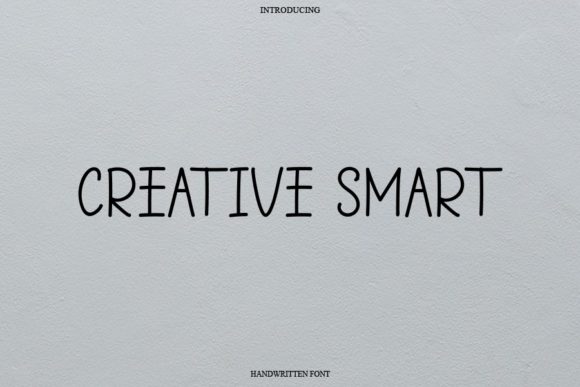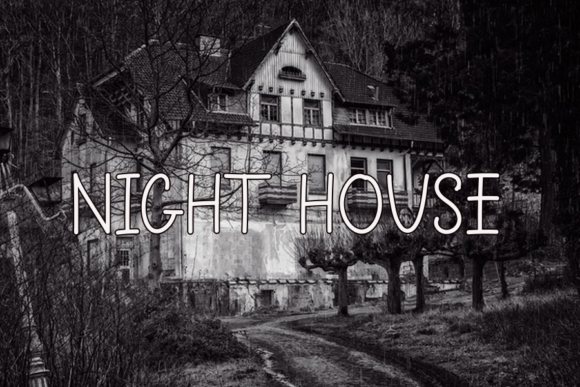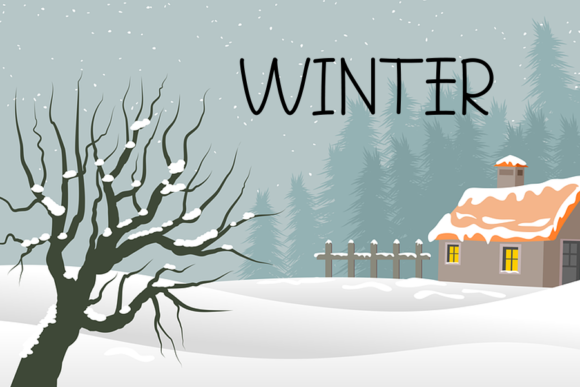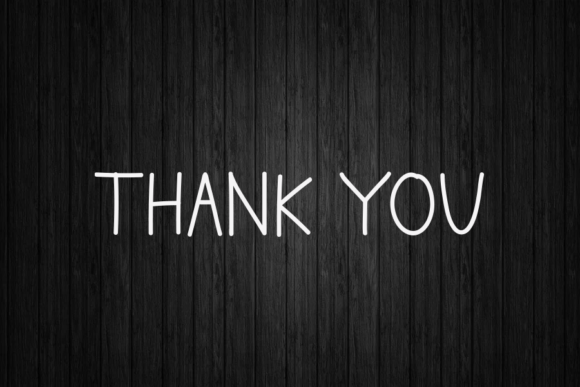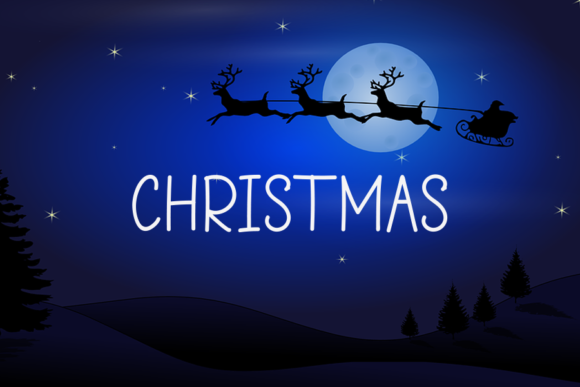
Creative Smart Font
About Creative Smart Font
Creative Smart is a simple and neat lettered script font. Clean and a little bit quirky, this font is the perfect fit for all of your logos, branding, social media, and crafty DIY projects.